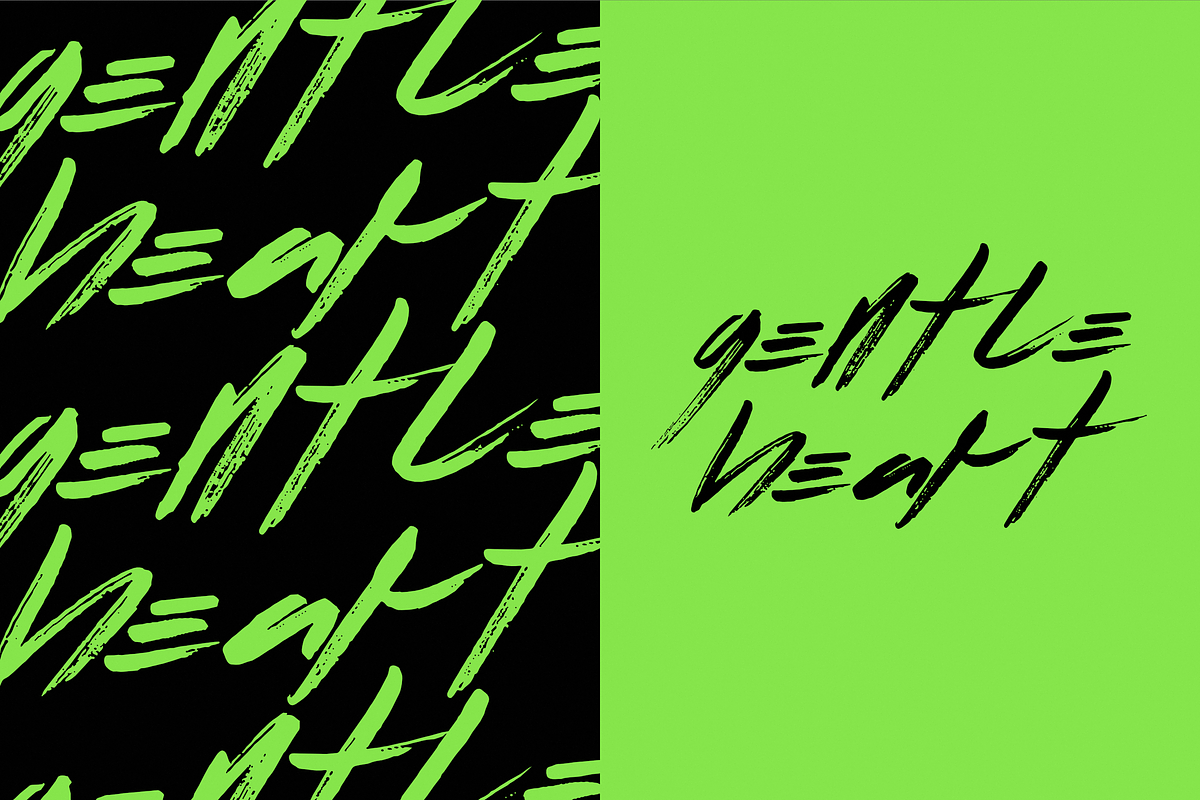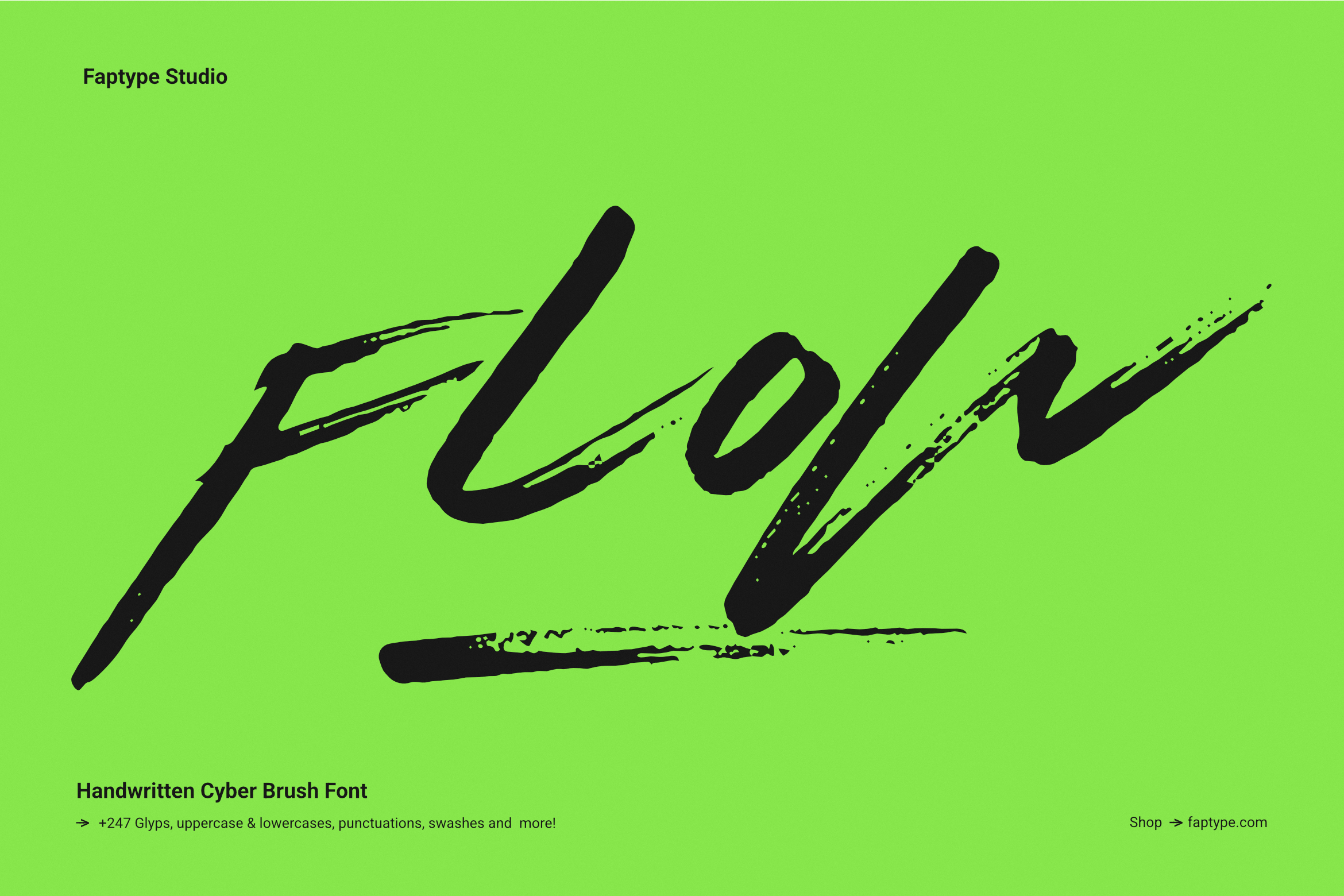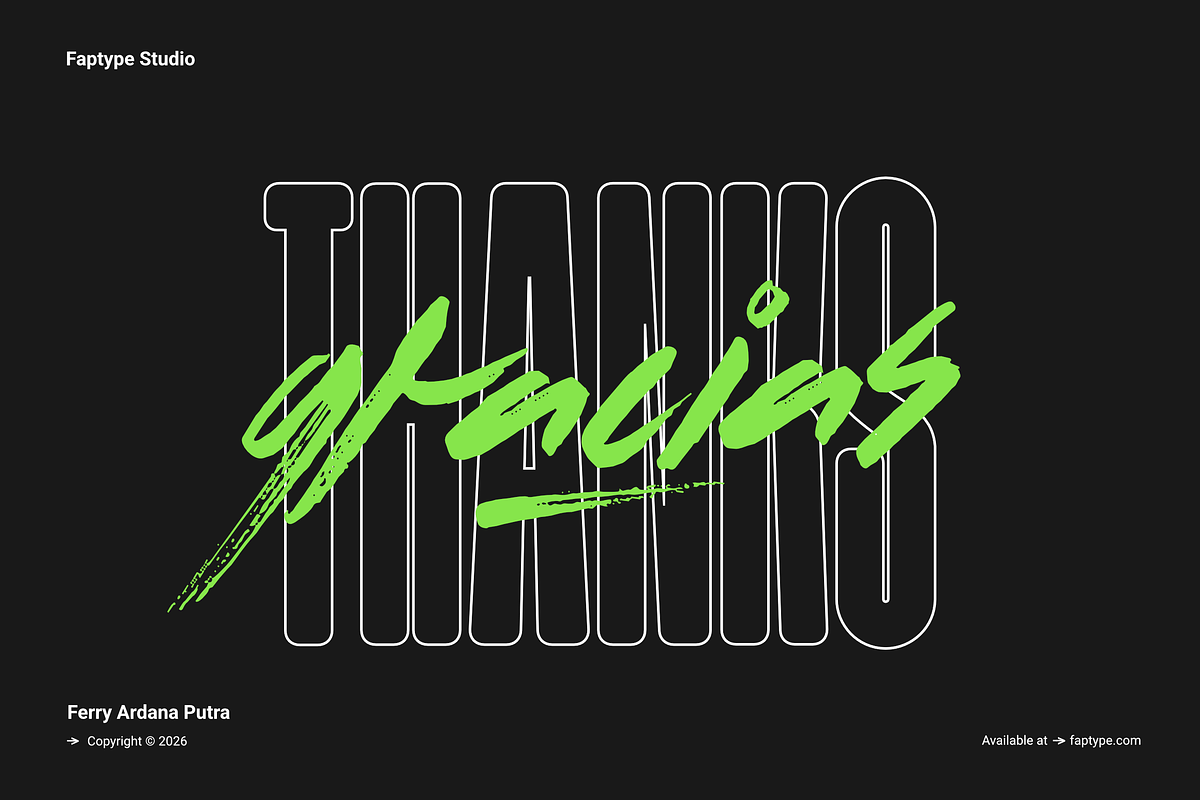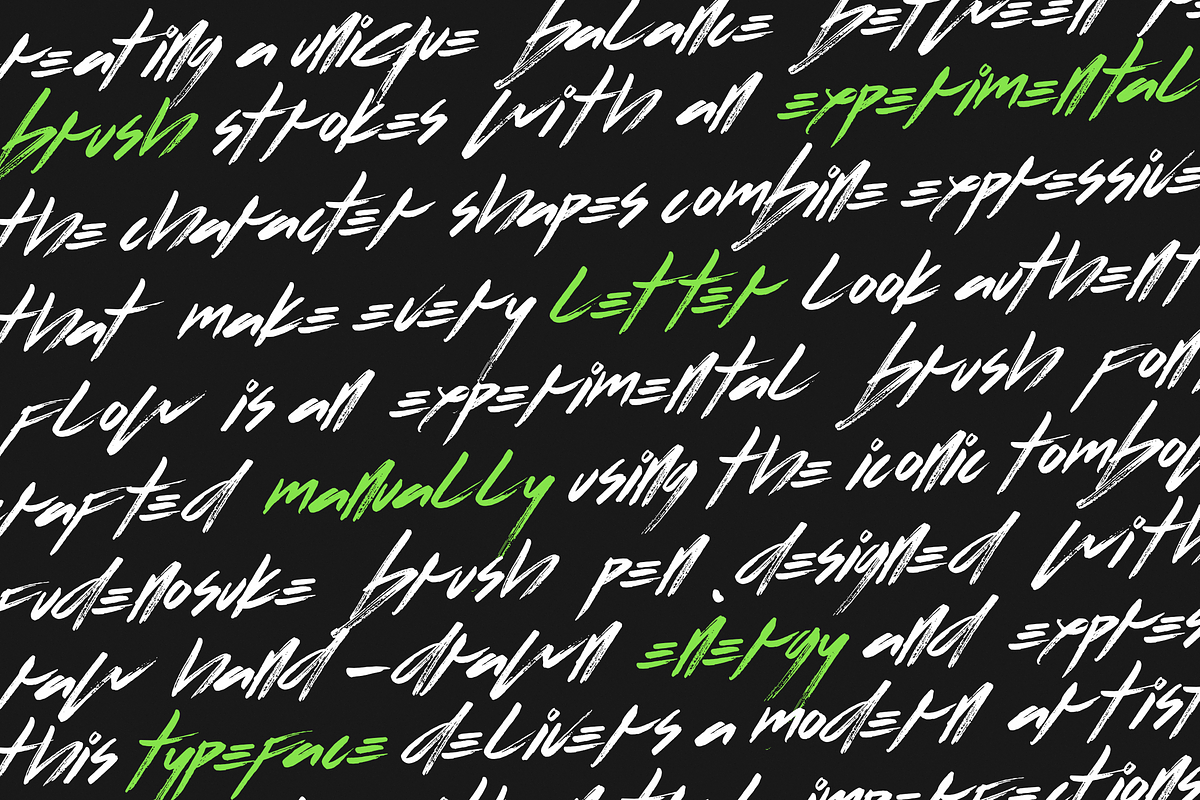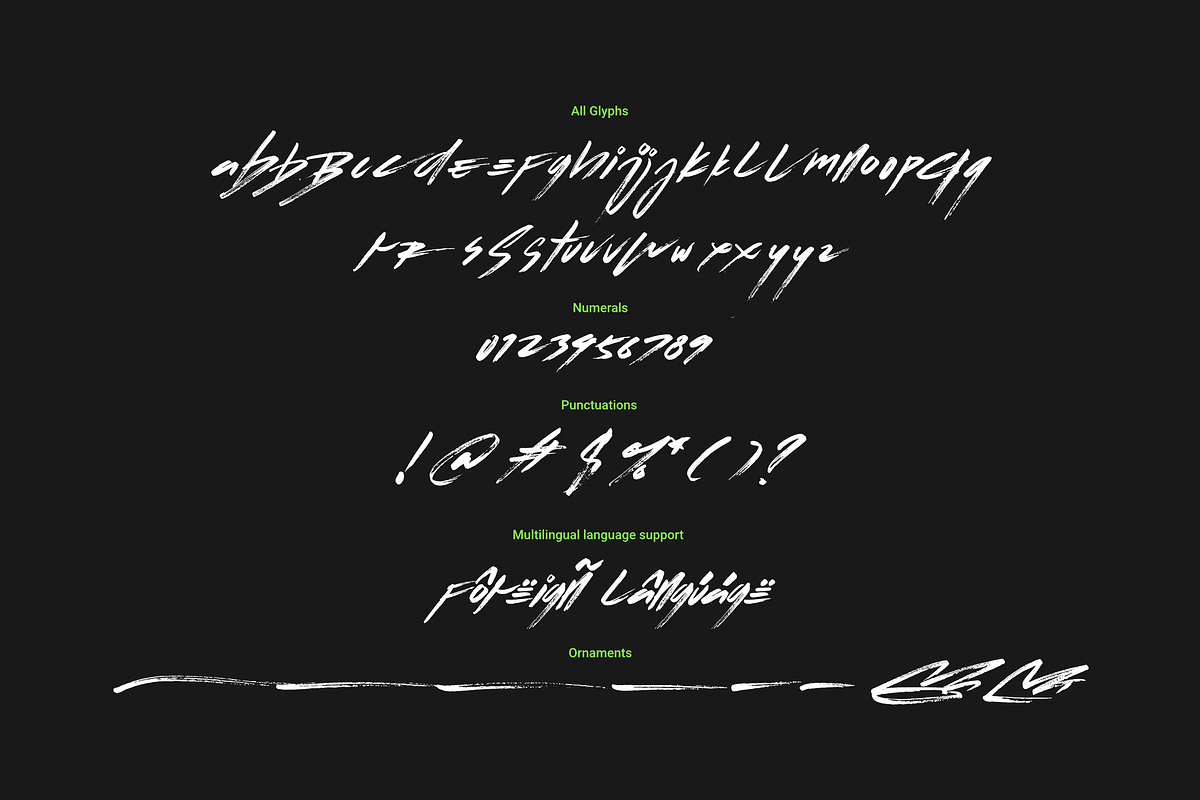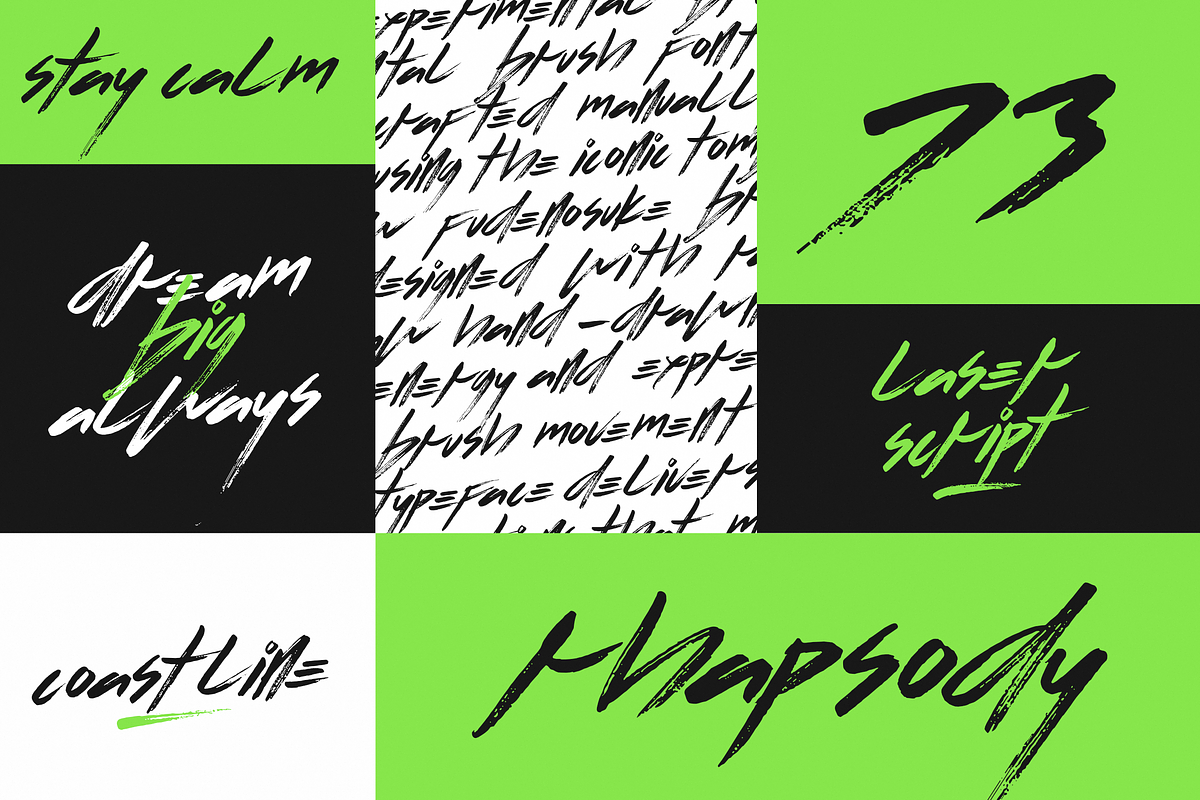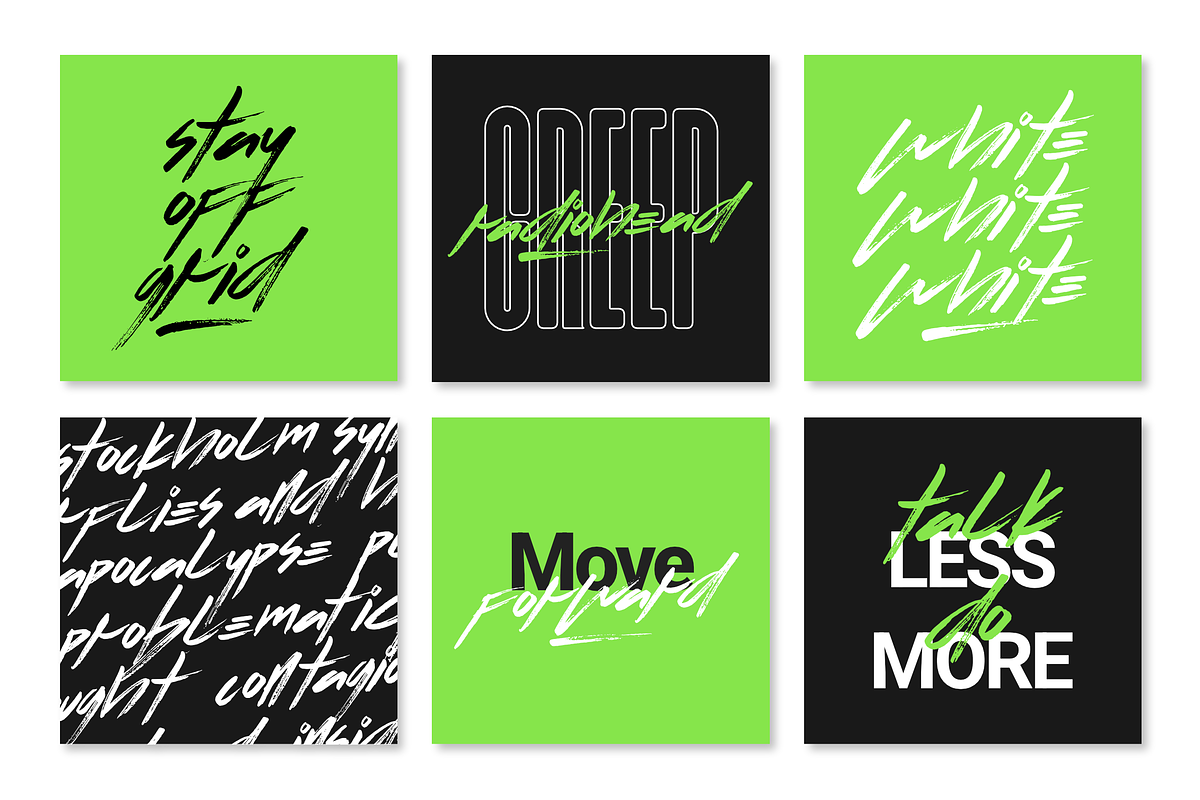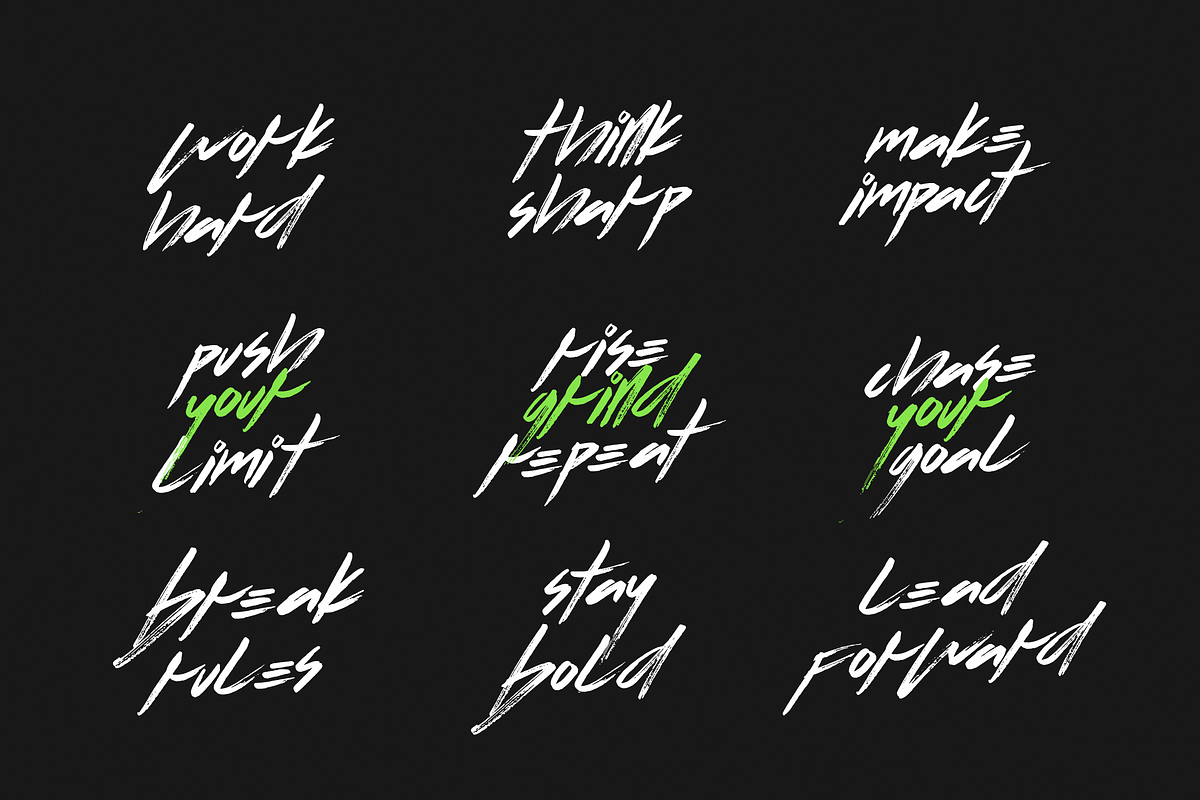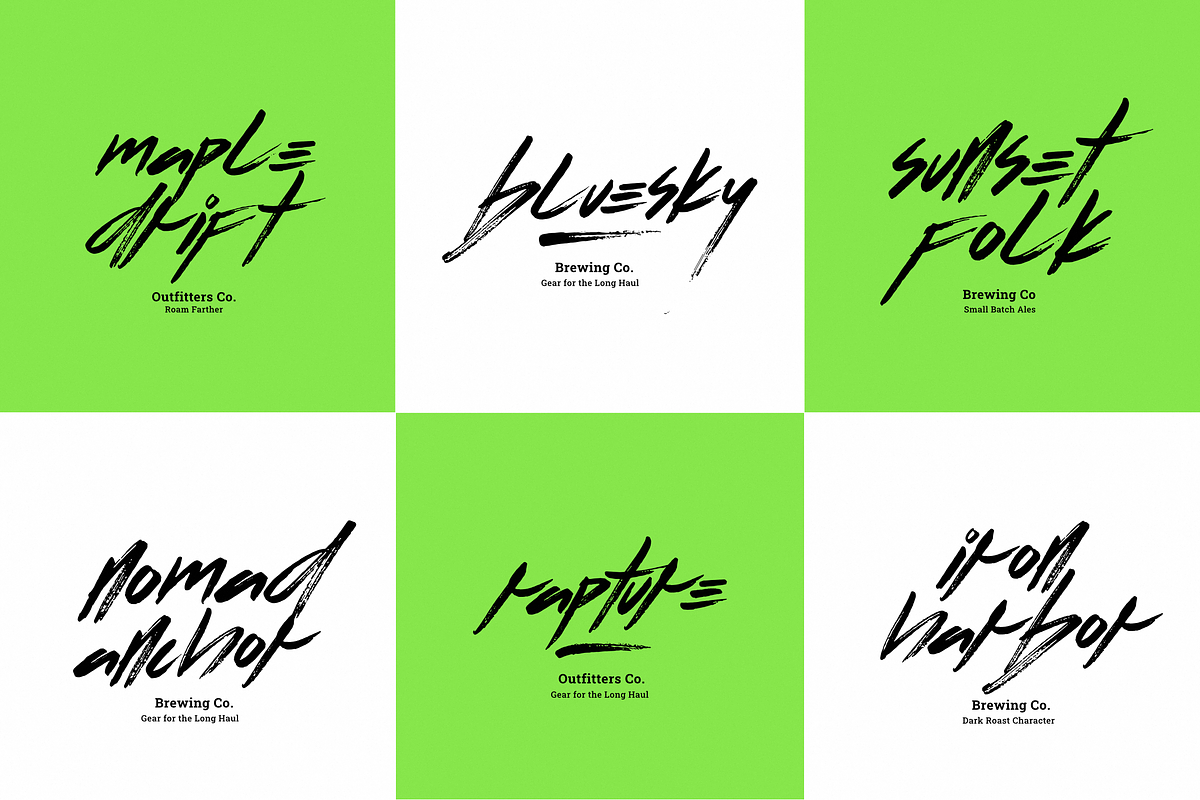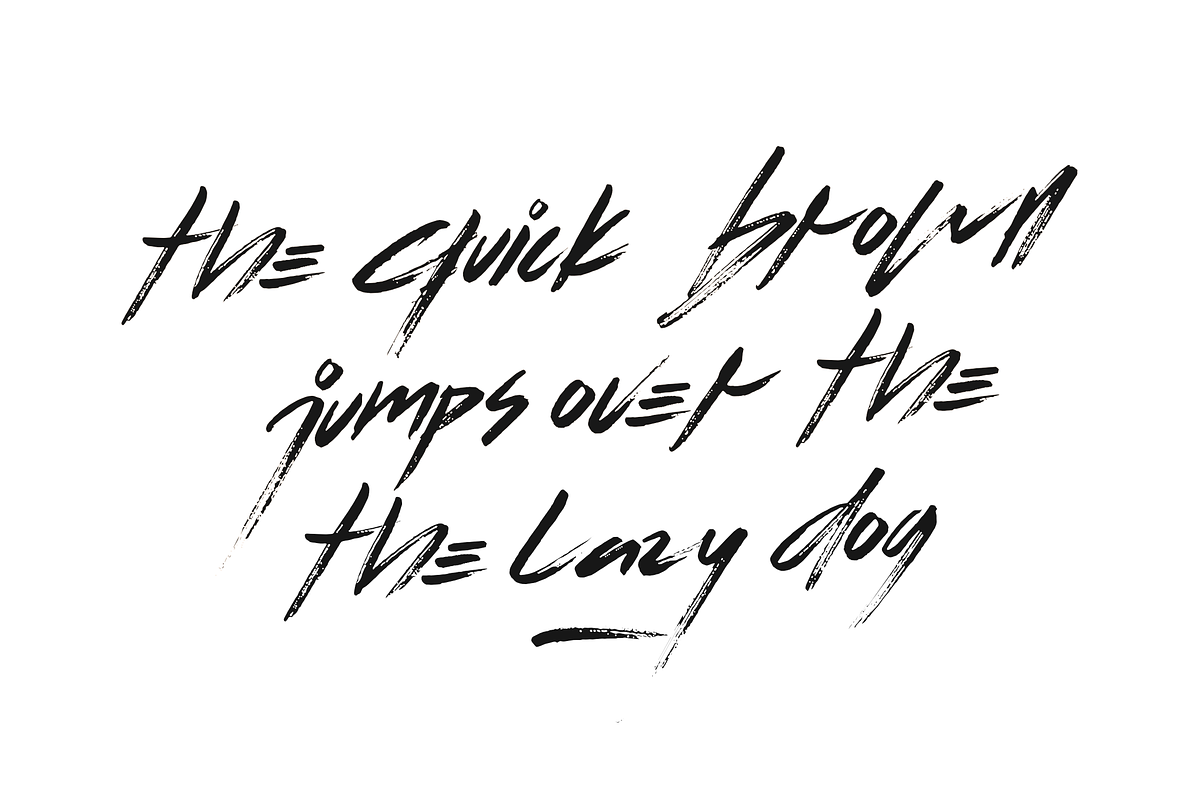
Flow | Experimental Brush Font
Flow is an experimental brush font crafted manually using the iconic Tombow Fudenosuke Brush pen. Designed with raw hand-drawn energy and expressive brush movement, this typeface delivers a modern artistic feel with natural imperfections that make every letter look authentic and alive.
The character shapes combine expressive brush strokes with an experimental structure, creating a unique balance between readable typography and artistic freedom. Flow is perfect for designers who want a handcrafted typeface with bold personality and modern visual impact.
This font works beautifully for streetwear branding, album covers, poster designs, editorial layouts, music visuals, social media graphics, packaging, creative branding, YouTube thumbnails, and experimental typography projects.
Flow Experimental Brush Font includes complete lowercase characters, numerals, punctuation, symbols, and stylistic alternates to help you create more dynamic and expressive typography compositions.
Created through real hand lettering using Tombow Fudenosuke Brush and digitally refined for professional use, this font preserves authentic brush textures while remaining clean and versatile for modern design needs.
Streetwear Design
Poster Design
Music Artwork
Experimental Typography
Album Covers
Branding Projects
YouTube Thumbnails
Creative Packaging
Fashion Visuals
Editorial Layouts
Urban Design
Flow Experimental Brush Font comes with expressive brush details, natural dry textures, handcrafted movement, and modern experimental letterforms that create a strong visual identity for creative projects.
This font is carefully designed to maintain a natural handwritten feel while still offering excellent readability and professional quality.
Features of Flow Font
Lowercase letters
Aternates Included
Dry brush swashes included